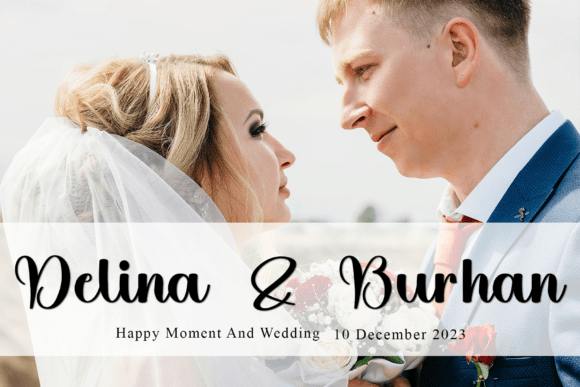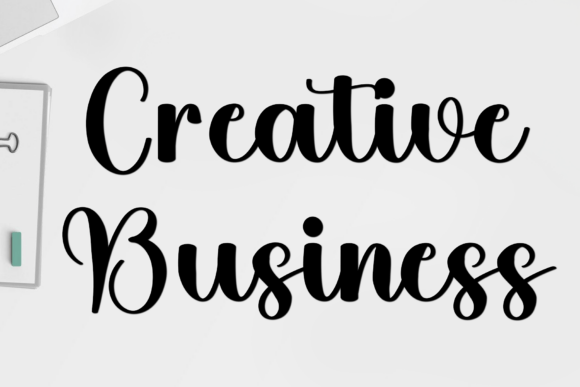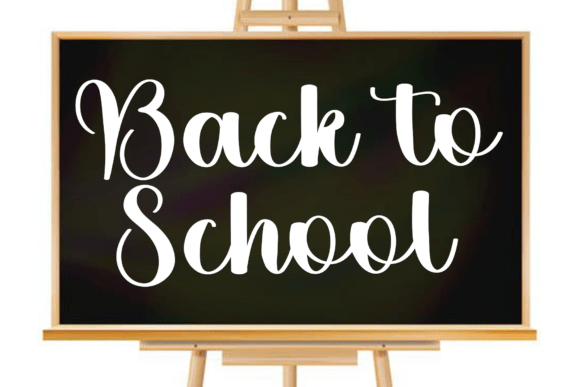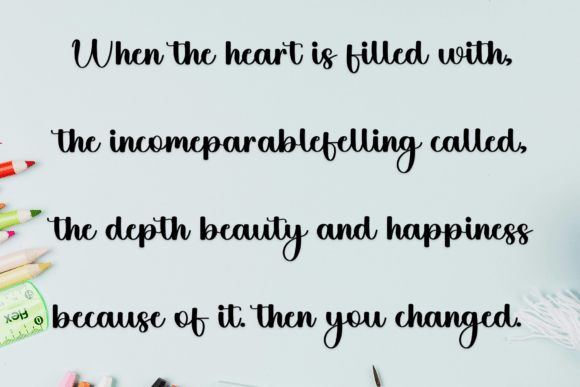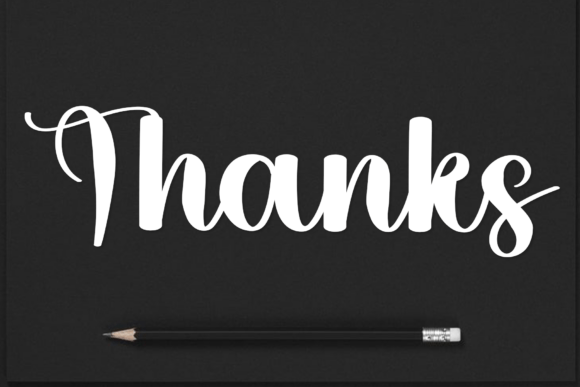
Introducing the Alaska Christmas Font: A Playful yet Sophisticated Script Font
Are you looking for a font that can add a touch of personality to your designs? Look no further than the Alaska Christmas Font. This delightful script font exudes a playful, yet sophisticated charm that makes it perfect for a range of projects. In this article, we’ll take a closer look at the features of the Alaska Christmas Font and explore how it can be used to elevate your designs.
Defining Elements of the Alaska Christmas Font
The Alaska Christmas Font is characterized by its thick, hand-drawn brush strokes and bouncy baseline. These elements give each letter a natural, organic feel that is both friendly and approachable. The font’s generous, rounded forms and soft, connected curves create a sense of warmth, making it perfect for designs that require a personal touch.
One of the standout features of the Alaska Christmas Font is its high stroke contrast. This adds visual interest and a subtle sense of elegance, making the font suitable for a wide range of applications. Whether you’re designing a holiday greeting card or a modern brand identity, the Alaska Christmas Font is sure to impress.
Versatility of the Alaska Christmas Font
The Alaska Christmas Font is exceptionally versatile, making it perfect for a range of projects. Its expressive tone is both friendly and chic, making it ideal for:
- Holiday greeting cards and cozy packaging
- Lively social media graphics
- Impactful headlines
- Modern branding
The font’s distinctive charm lies in the way it combines classic handwritten warmth with a clean, contemporary aesthetic. This makes it perfect for designers and crafters who want to add a personal touch to their designs.
PUA-Encoded for Effortless Customization
The Alaska Christmas Font is also PUA-encoded, ensuring effortless access to all glyphs, swashes, and alternate characters. This makes it easy to customize the font to suit your needs, allowing you to create unique and personalized designs.
The Alaska Christmas Font is perfect for designers and crafters who want to add a touch of personality to their designs. Whether you’re creating holiday greeting cards, social media graphics, or modern brand identities, this font is sure to impress.
Tips for Using the Alaska Christmas Font
Here are a few tips for using the Alaska Christmas Font:
- Use the font to add a personal touch to your holiday greeting cards and packaging
- Pair the font with other design elements, such as illustrations or graphics, to create a unique and eye-catching design
- Use the font’s swashes and alternate characters to add a touch of elegance and sophistication to your designs
In conclusion, the Alaska Christmas Font is a playful yet sophisticated script font that is perfect for adding a touch of personality to any design. With its thick, hand-drawn brush strokes, bouncy baseline, and high stroke contrast, this font is sure to impress. Whether you’re a designer or crafter, the Alaska Christmas Font is a must-have in your design arsenal. So why wait? Download the font today and start creating stunning designs that are sure to delight.